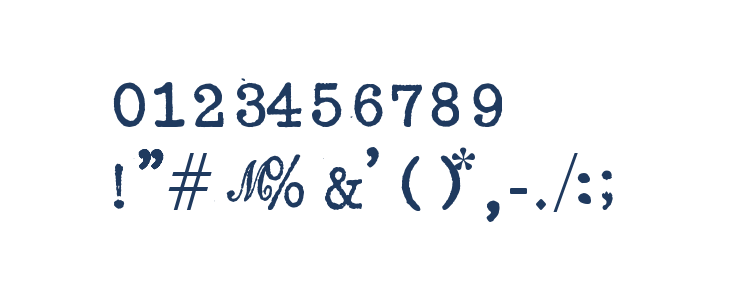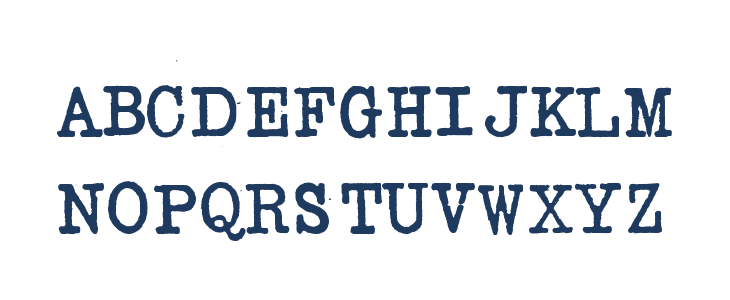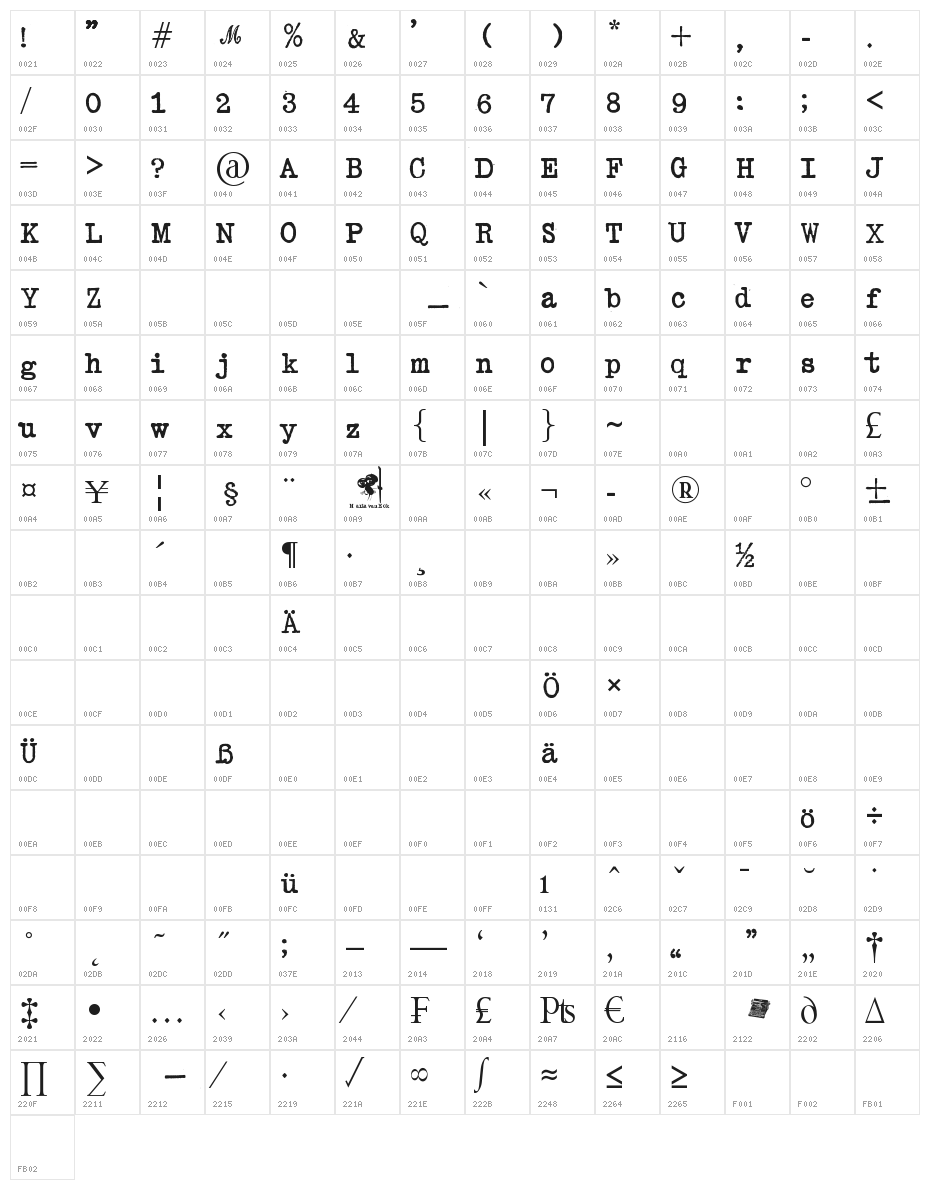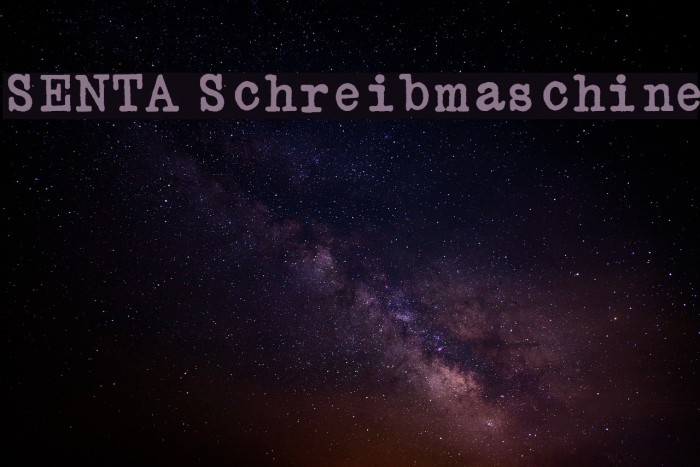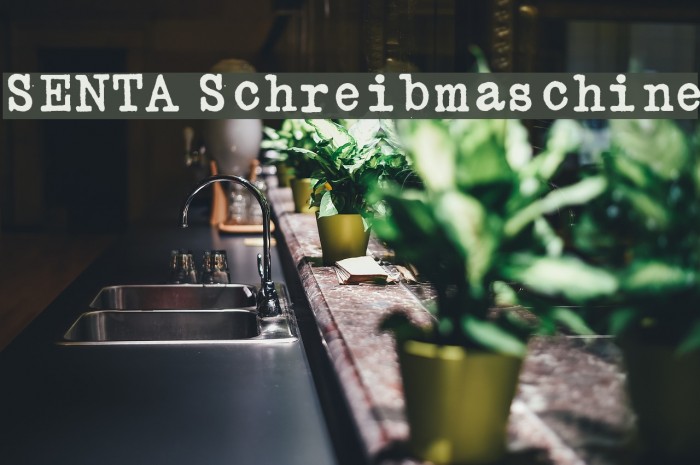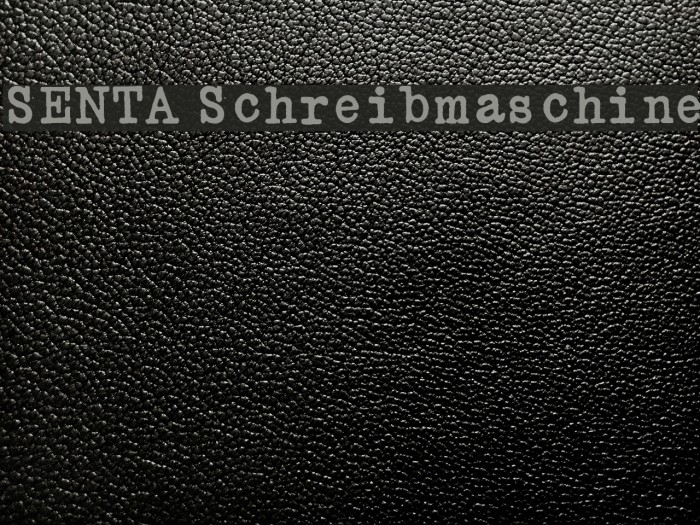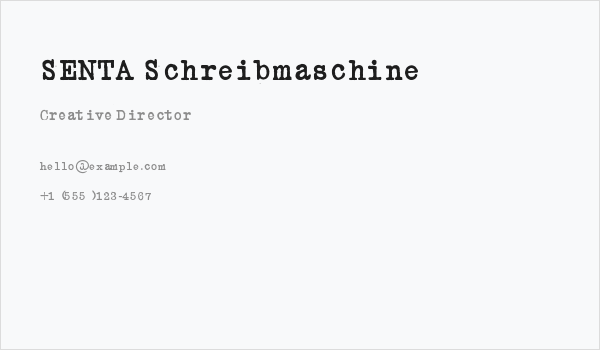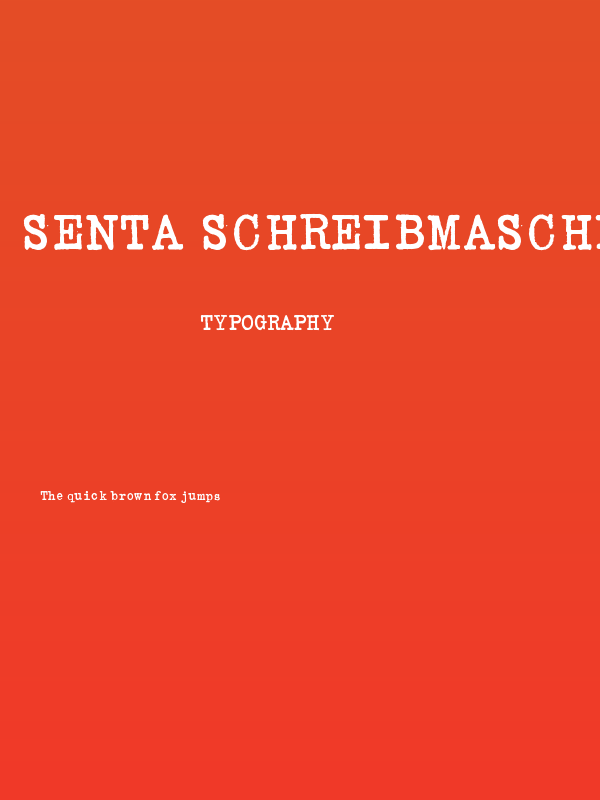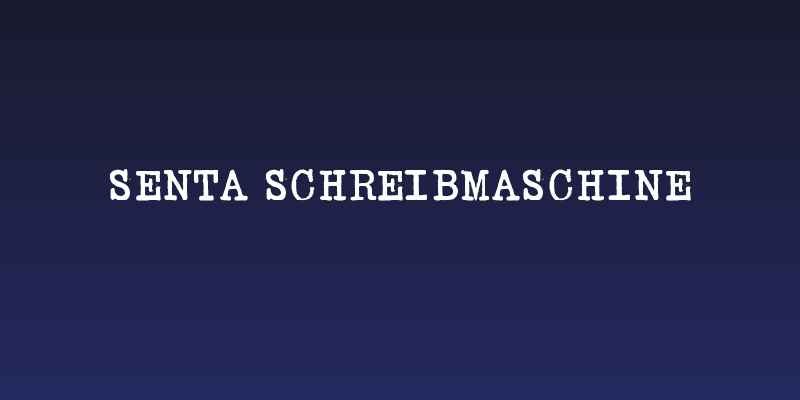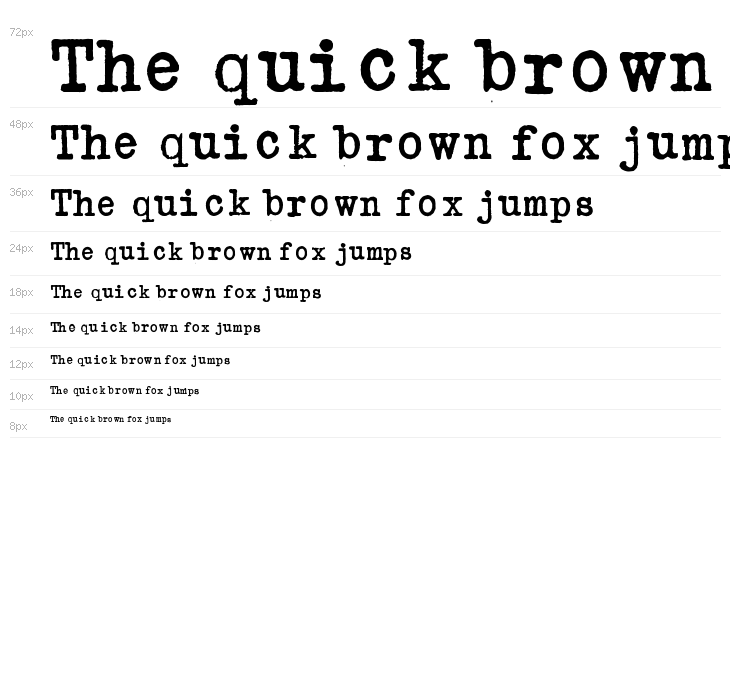
SENTA Schreibmaschine Font
SENTA Schreibmaschine Description
This typewriter-style font features a classic, mechanical look reminiscent of vintage typewriters. The characters are monospaced, giving each letter and symbol a uniform width, which is typical of typewriter fonts. The font has a slightly rough texture, adding to its authentic, old-school charm. The uppercase and lowercase letters are distinct, with the uppercase letters being bold and prominent. Numbers and special characters maintain the same monospaced, textured style, ensuring consistency across all elements. This font evokes a sense of nostalgia and is perfect for projects that require a retro or vintage aesthetic.
| Use Case | Headlines, Logos, Decorative text |
| Proposed Projects | Ideal for retro-themed designs, typewriter art, vintage posters, and projects requiring a nostalgic touch. |